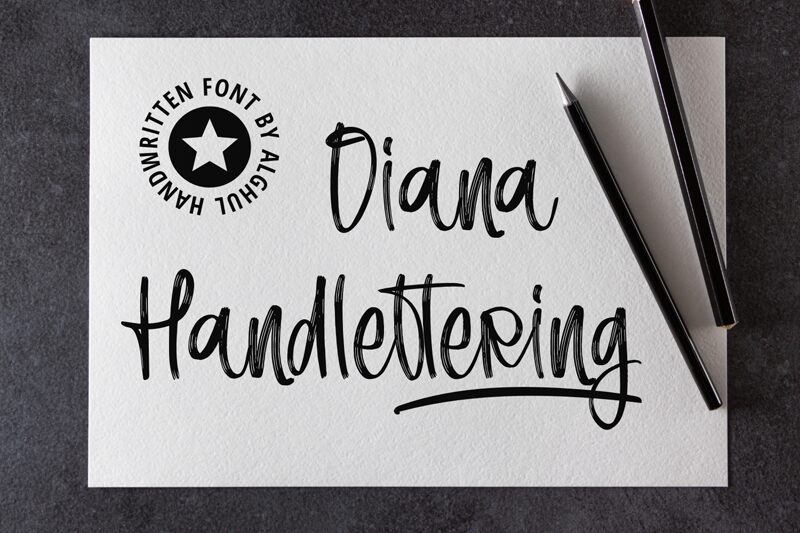
Diana Handlettering
Diana Handlettering is a charming and playful brush font designed by Alghul. With a light weight and narrow width, this font is perfect for designs that require a casual, handcrafted touch, such as social media graphics, greeting cards, and branding. Diana Handlettering's unique style and organic feel will add a personal and relatable touch to your designs. Let Diana Handlettering bring your projects to life with its authentic marker-style look.